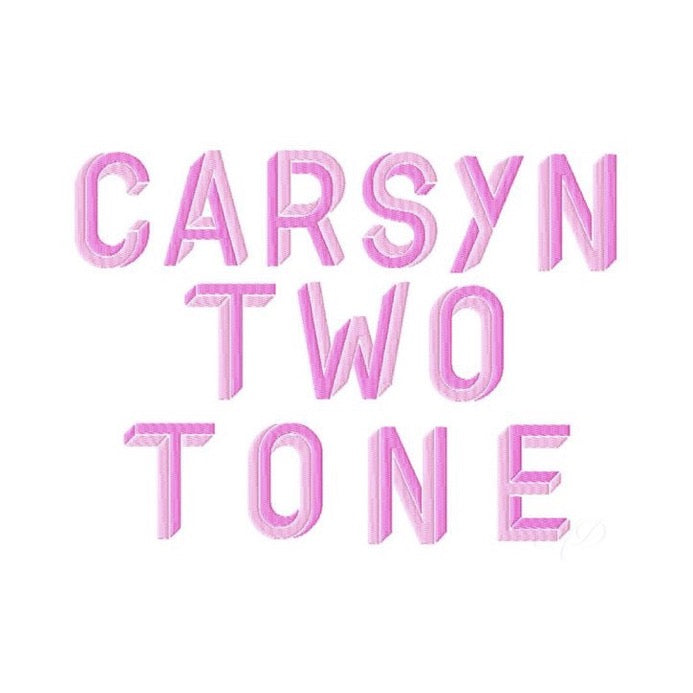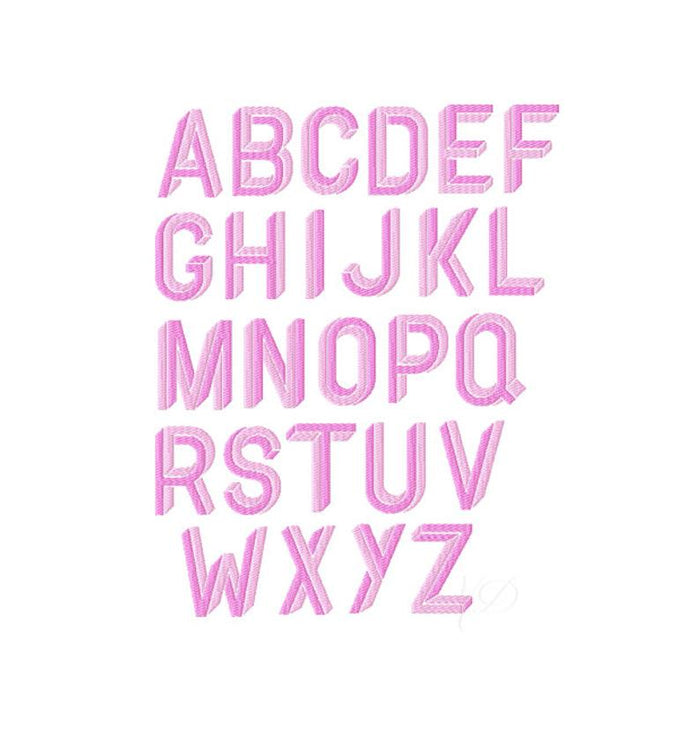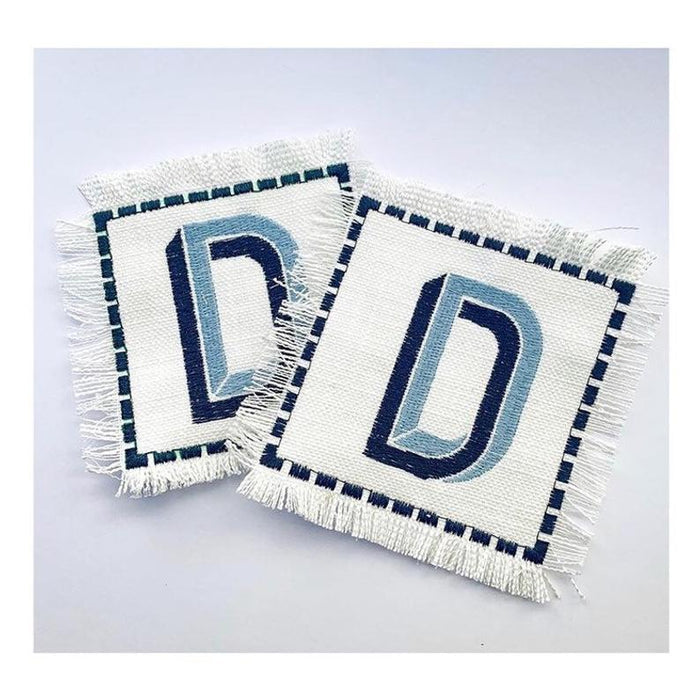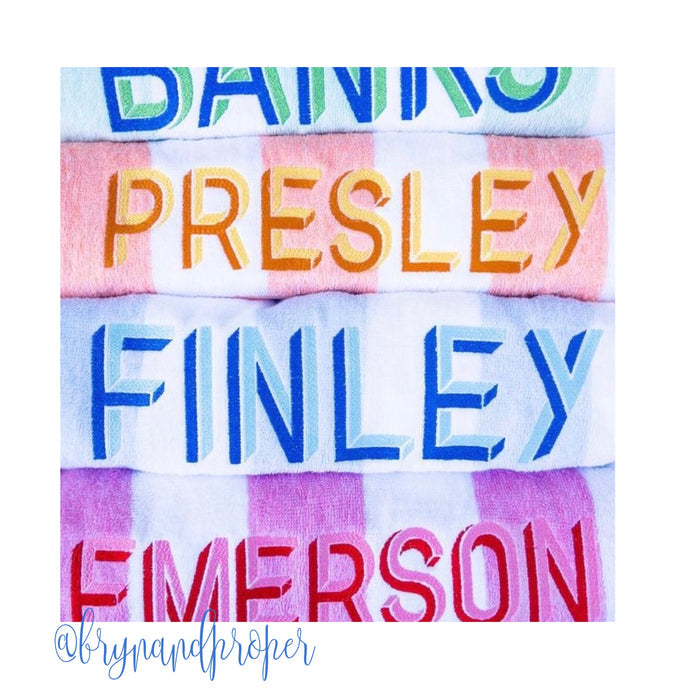
Carsyn Two Tone Embroidery Font Small
Transform your embroidery projects with the Carsyn Two Tone Embroidery Font. This versatile two-color font features contrasting fill stitches, perfect for creating stunning monograms on various fabric types using your embroidery machine.